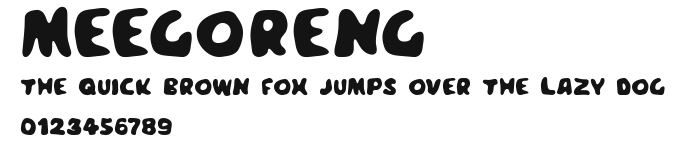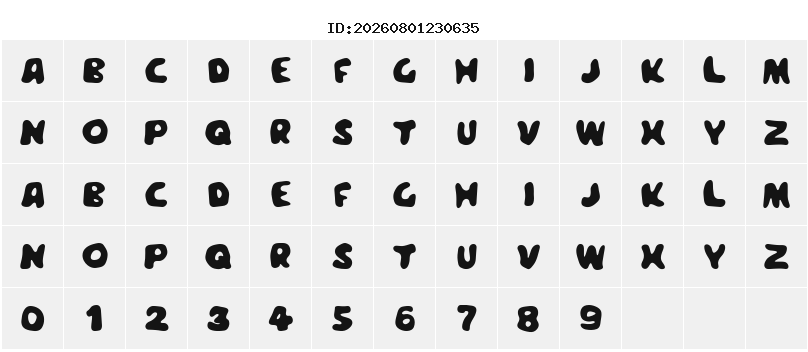
Meegoreng Preview
• Font Name: Meegoreng
• Full Font Name: Meegoreng
• Version: Meegoreng version1.0
• PostScript Name: Meegoreng
About Meegoreng.ttf
Meegoreng.ttf is a modern, elegant sans-serif font designed for ultimate readability and visual harmony. Perfect for branding, headlines, web design, and print materials.